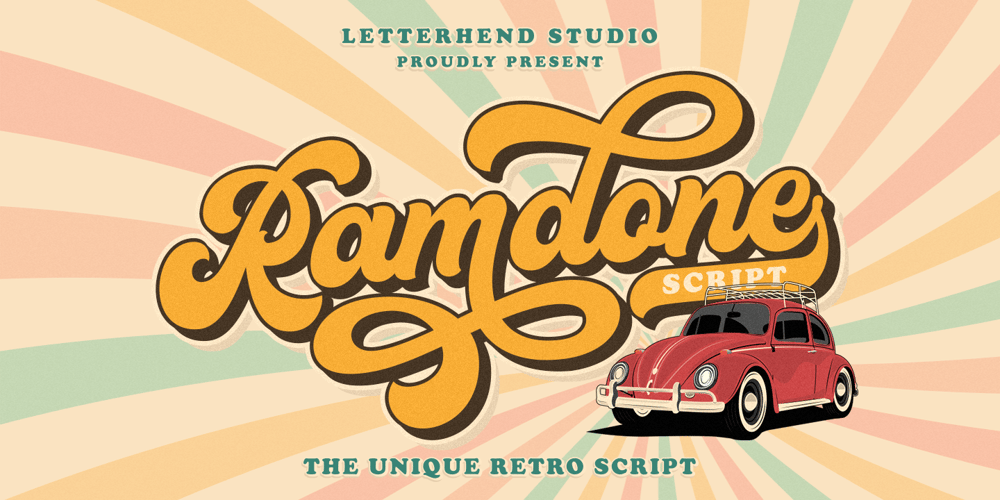
Ramdone
Ramdone font
Ramdone Font Family was designed by Hendry Juanda and published by Letterhend. Ramdone contains 2 styles and family package options. Ramdone is a retro bold script which will bring you back to 60s feel. This typeface has the extrude version so you can create your retro effect font in ease. This font perfectly made to be applied especially in logo, and the other various formal forms such as invitations, labels, logos, magazines, books, greeting / wedding cards, packaging, fashion, make up, stationery, novels, labels or any type of advertising purpose.